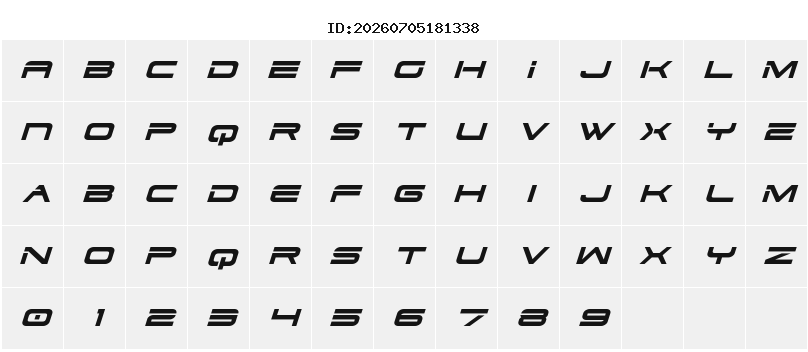
• Font Name: Dodger Title Italic
• Full Font Name: Dodger Title Italic
About Dodger Title Italic.ttf
Dodger Title Italic.ttf is a modern, elegant sans-serif font designed for ultimate readability and visual harmony. Perfect for branding, headlines, web design, and print materials.